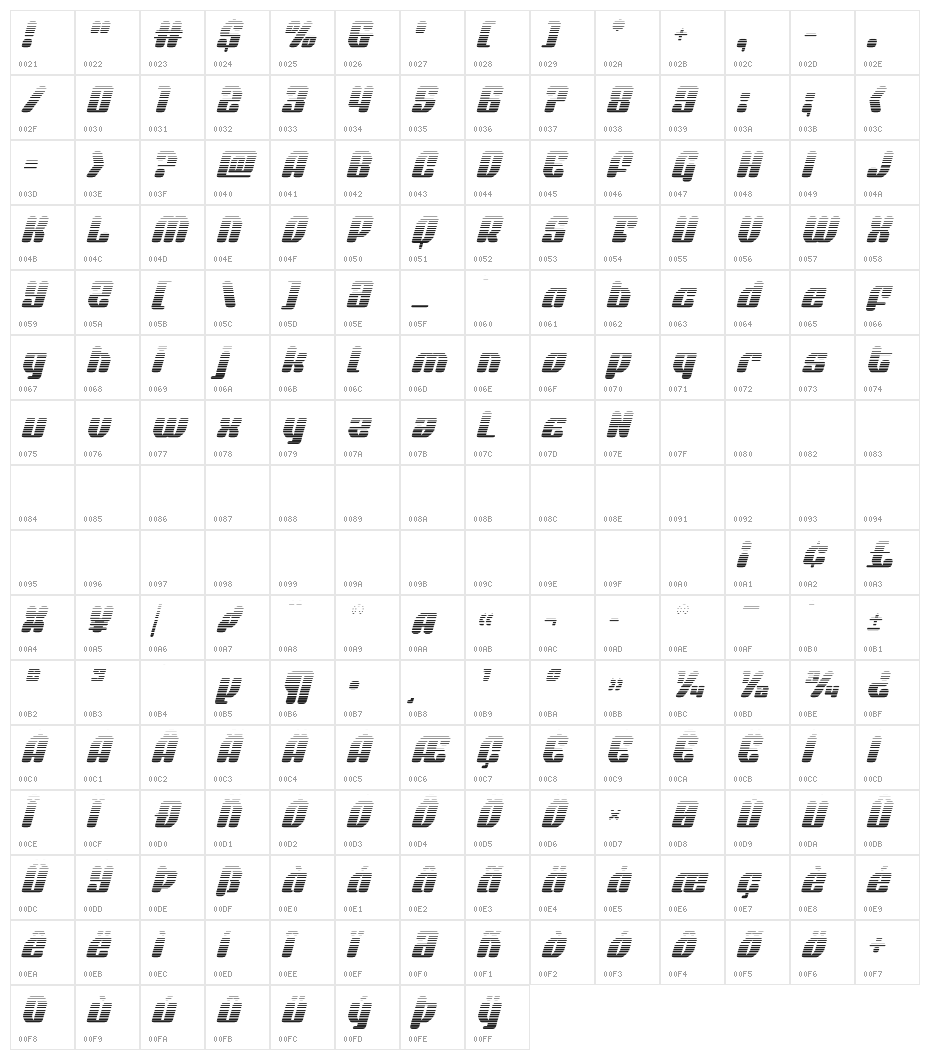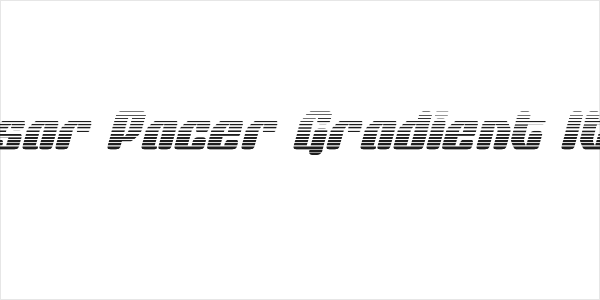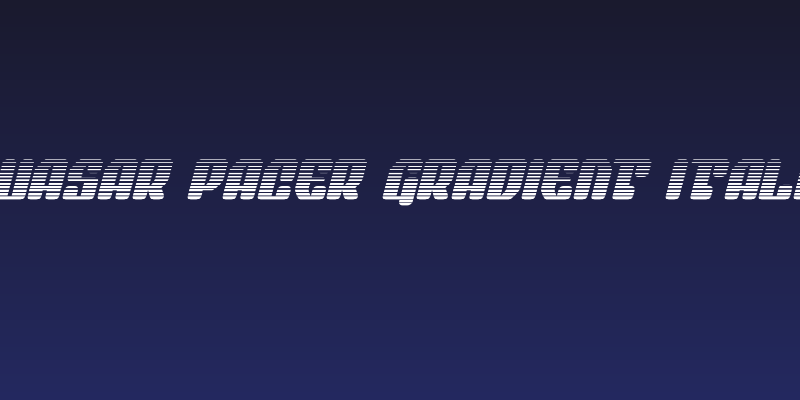
Quasar Pacer Gradient Italic Font
Quasar Pacer Gradient Italic Description
This font features a dynamic, futuristic design with a gradient effect that gives the impression of motion and speed. The characters are italicized, adding to the sense of forward movement. Each letter is composed of horizontal lines that create a striped pattern, enhancing the modern and technological feel. The font is bold and has a strong presence, making it ideal for attention-grabbing headlines or logos. The spacing between characters is tight, contributing to its compact and cohesive look. The overall style is distinctly modern and decorative, suitable for projects that require a contemporary and edgy aesthetic.
| Proposed Projects | Ideal for tech-related branding, futuristic posters, video game titles, and sci-fi themed projects. |